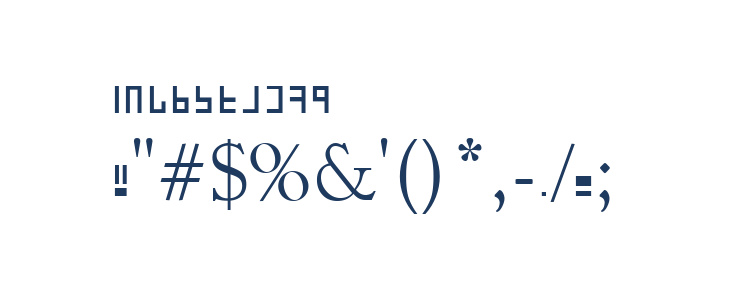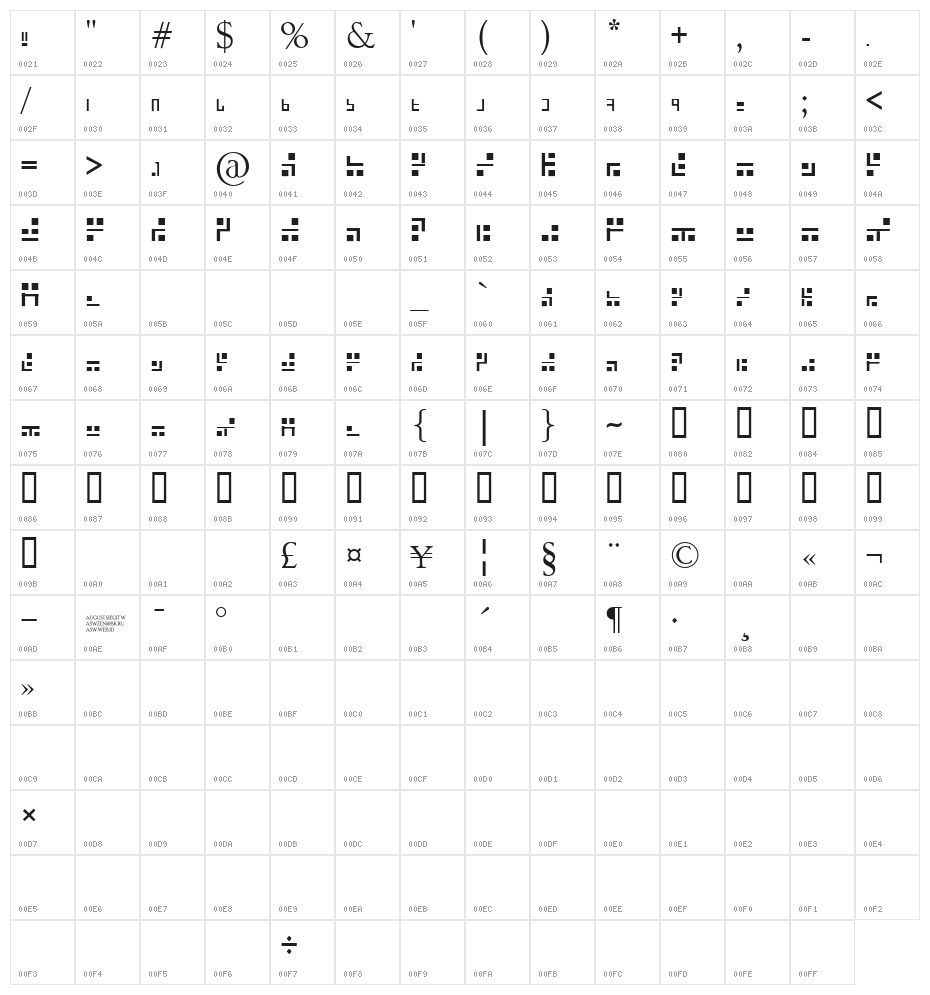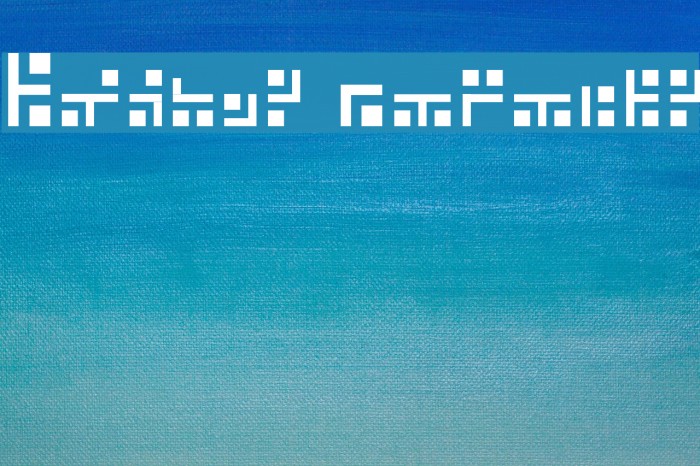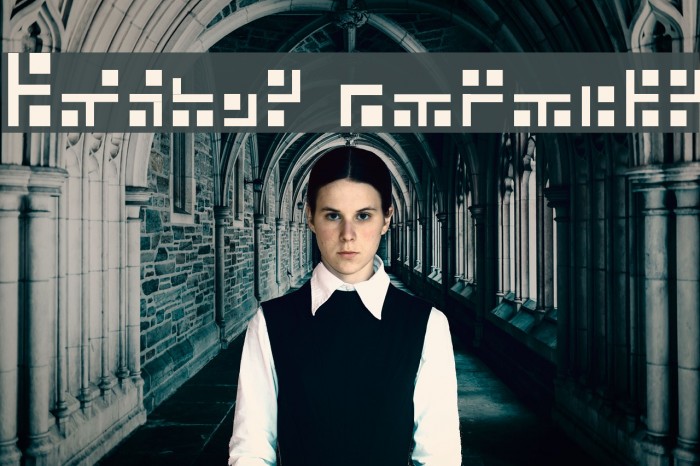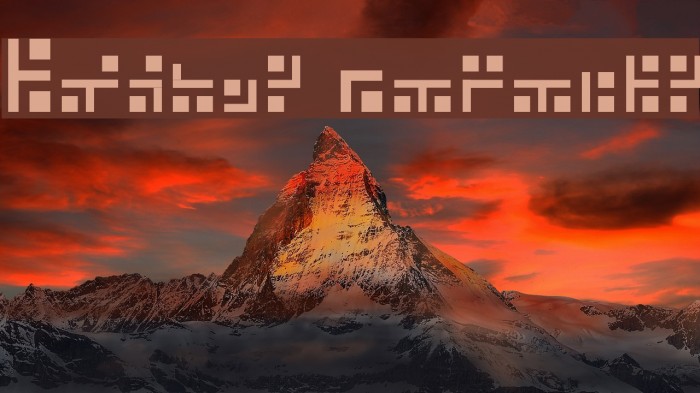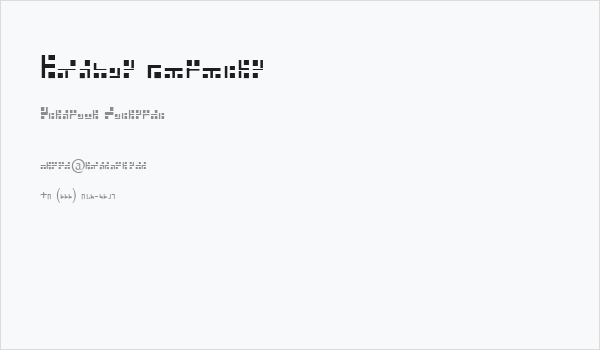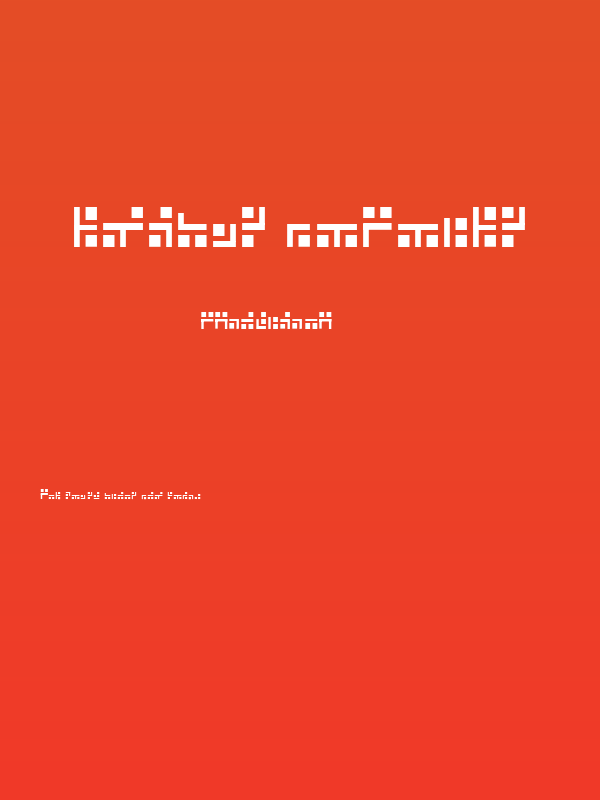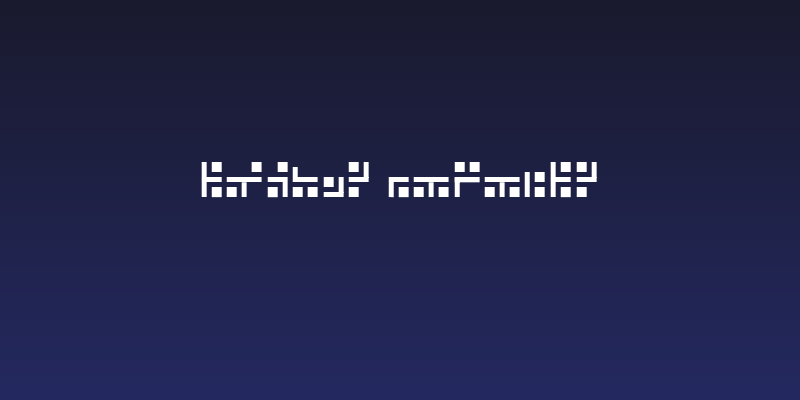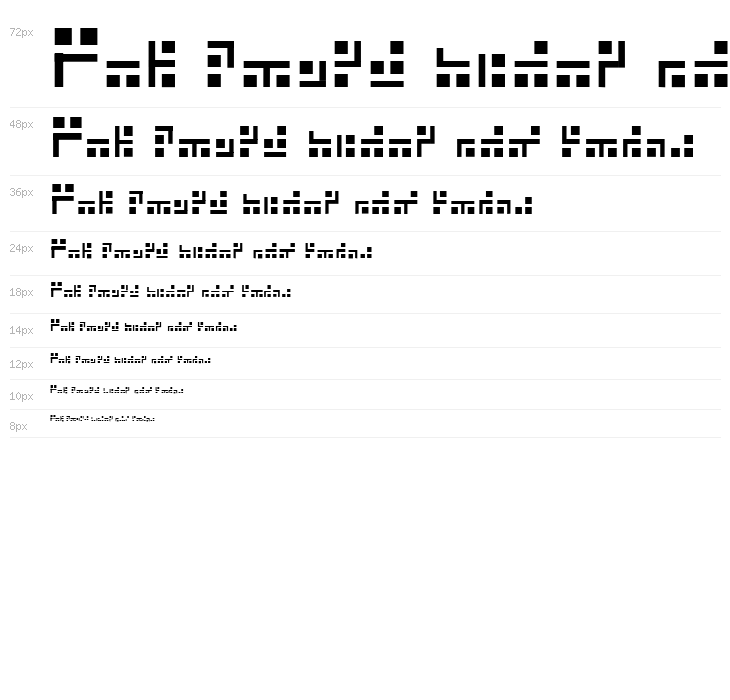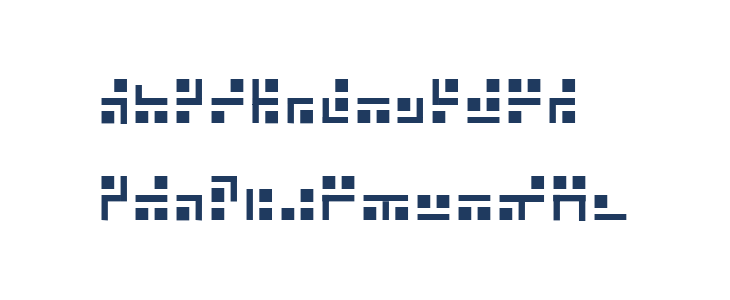
Exabic Futurec Font
Exabic Futurec Description
This font features a futuristic and geometric design, characterized by its blocky and angular shapes. The letters are composed of uniform, bold strokes with a consistent thickness, giving it a strong and impactful appearance. The characters are distinct and easily recognizable, with a modern aesthetic that suggests a digital or technological theme. The spacing between characters is tight, enhancing the compact and cohesive look of the text. This font is well-suited for projects that require a contemporary and innovative feel, such as tech branding, digital interfaces, or sci-fi themed designs.
| Use Case | Logos, Headlines, Digital interfaces |
| Proposed Projects | Ideal for tech branding, digital interfaces, sci-fi themes, and modern graphic designs. |